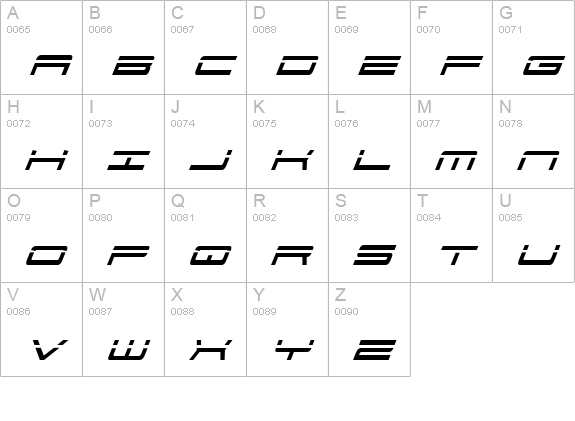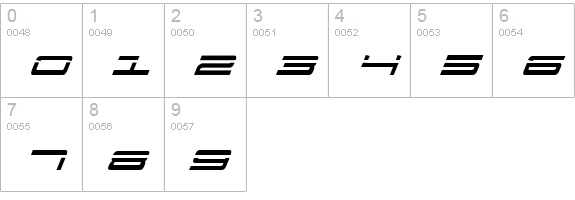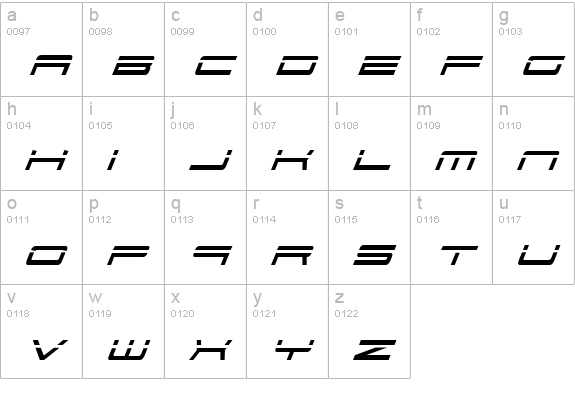
911 Porscha Laser Italic Font Details
911 Porscha Laser Italic is a distinctive, italic variant in the 911 typeface family \xE2\x80\x94 well suited to design and typography projects.
911 Porscha Laser Italic font is a sleek and modern typeface that exudes luxury and sophistication. With its sharp angles and elegant curves, this font is perfect for adding a touch of class to any design project. The italic style adds a dynamic and stylish flair to your text, making it stand out from the crowd. Best of all, 911 Porscha Laser Italic font is available for free download at FontsMarket.com. Whether you're working on a branding project, website design, or any other creative endeavor, this font is sure to elevate your work to the next level. Download it today and add a touch of elegance to your designs with 911 Porscha Laser Italic font.